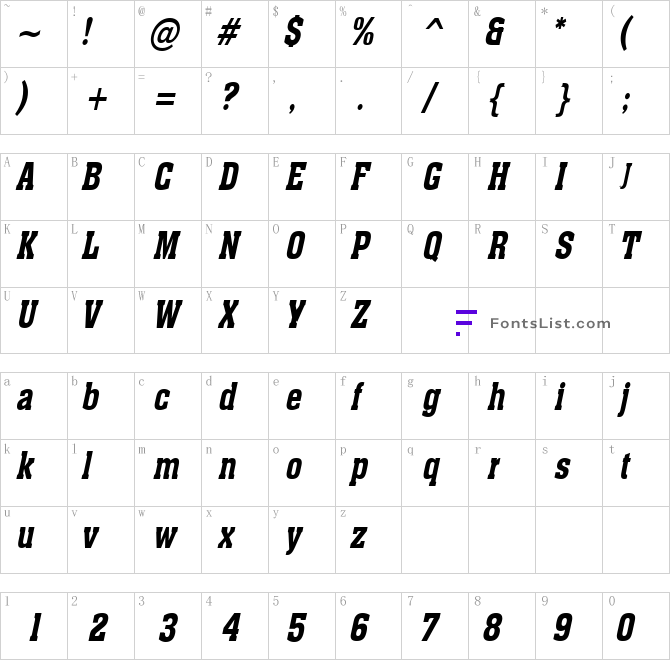
- Font Name:Ache Condensed
Ache-Condensed-BoldItalic.ttf is a very beautiful artistic font, Ache-Condensed-BoldItalic.ttf is widely used in the design and printing of various books and pictures,Ache-Condensed-BoldItalic.ttf has a strong visual impact,Ache-Condensed-BoldItalic.ttf is a commonly used font in newspapers, magazines and books, and is used in posters, e-commerce Poster design, store design, logo design, font design and other fields.Ache-Condensed-BoldItalic.